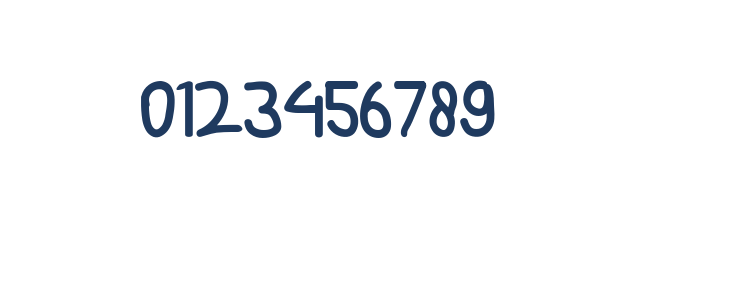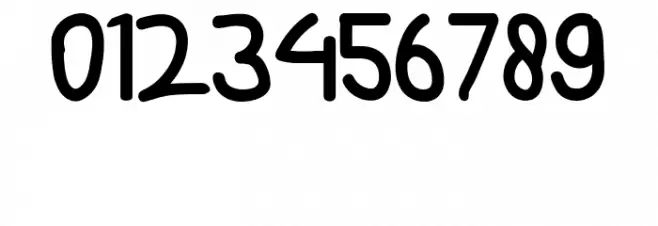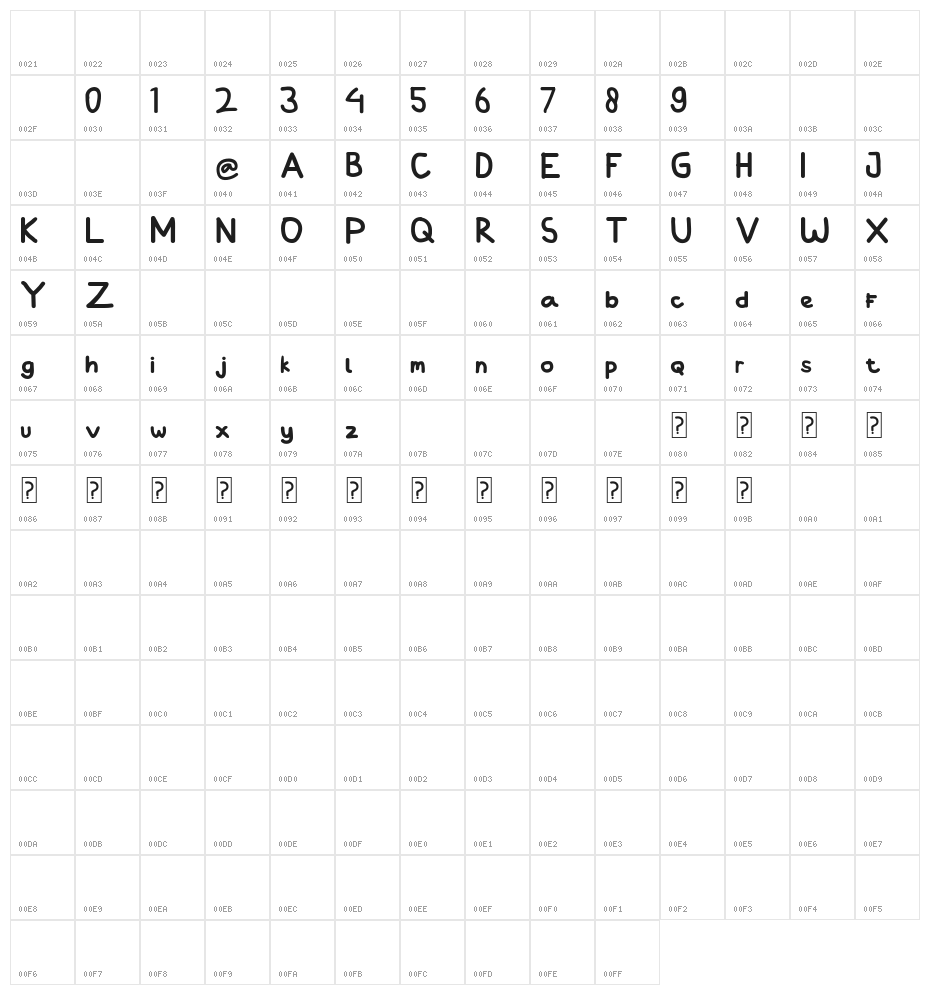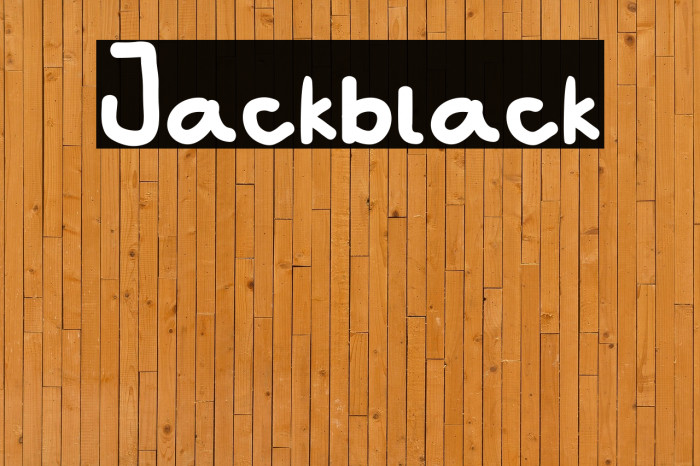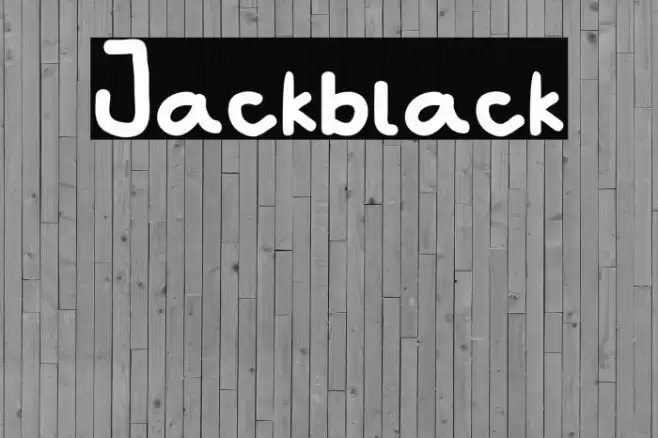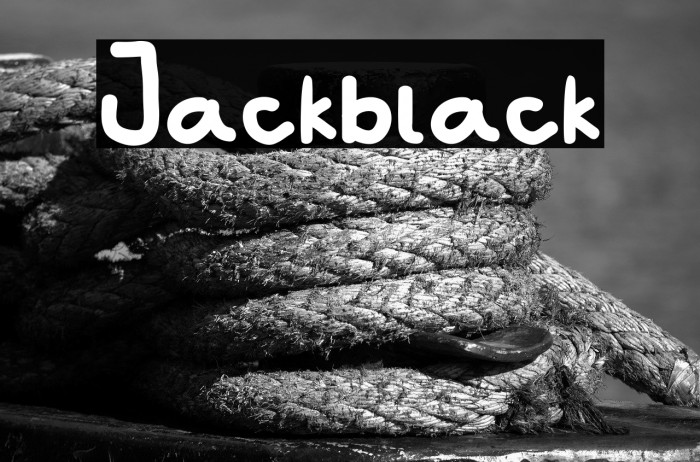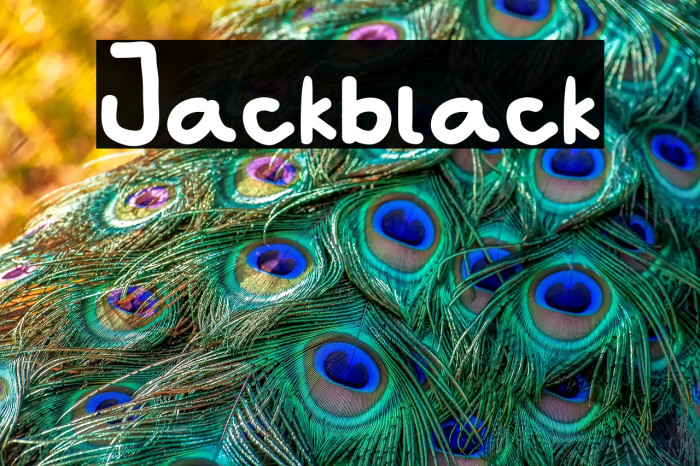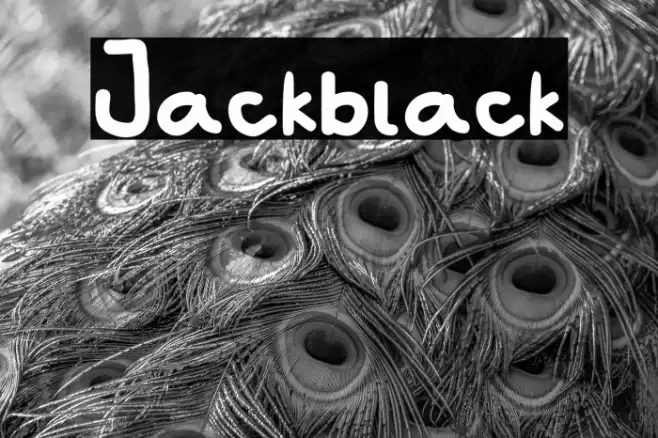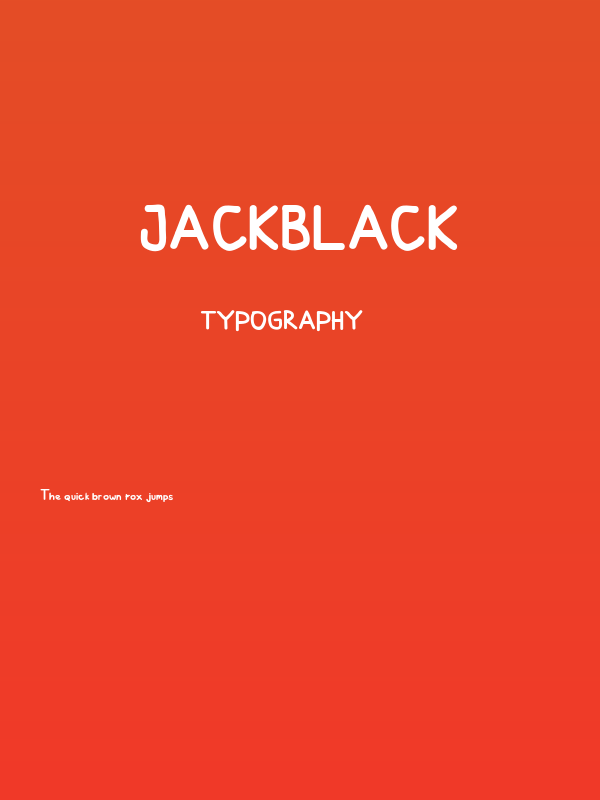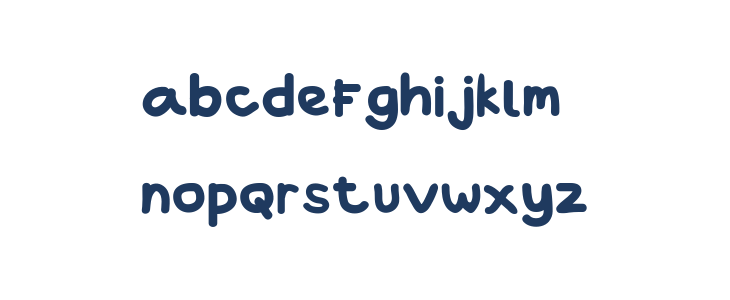
Jackblack Font
Jackblack Description
This playful and rounded font exudes a casual and friendly vibe, with its bold and slightly irregular strokes. The characters are well-spaced, creating a harmonious and approachable appearance. The uppercase letters maintain a consistent height, while the lowercase letters have a slightly whimsical touch, adding to the font's charm. The numerals are clear and easy to read, complementing the overall style. This font is versatile, suitable for projects that require a touch of personality and warmth.
| Proposed Projects | Ideal for children's books, playful branding, casual invitations, and friendly social media graphics. |